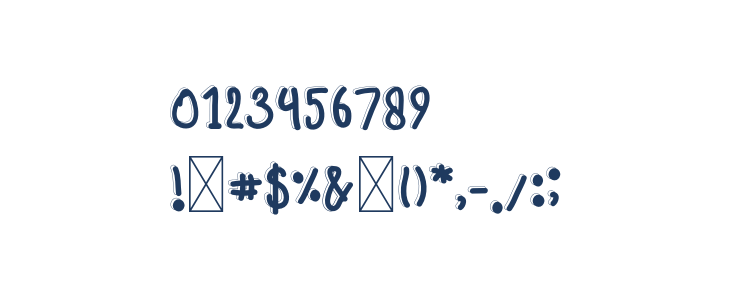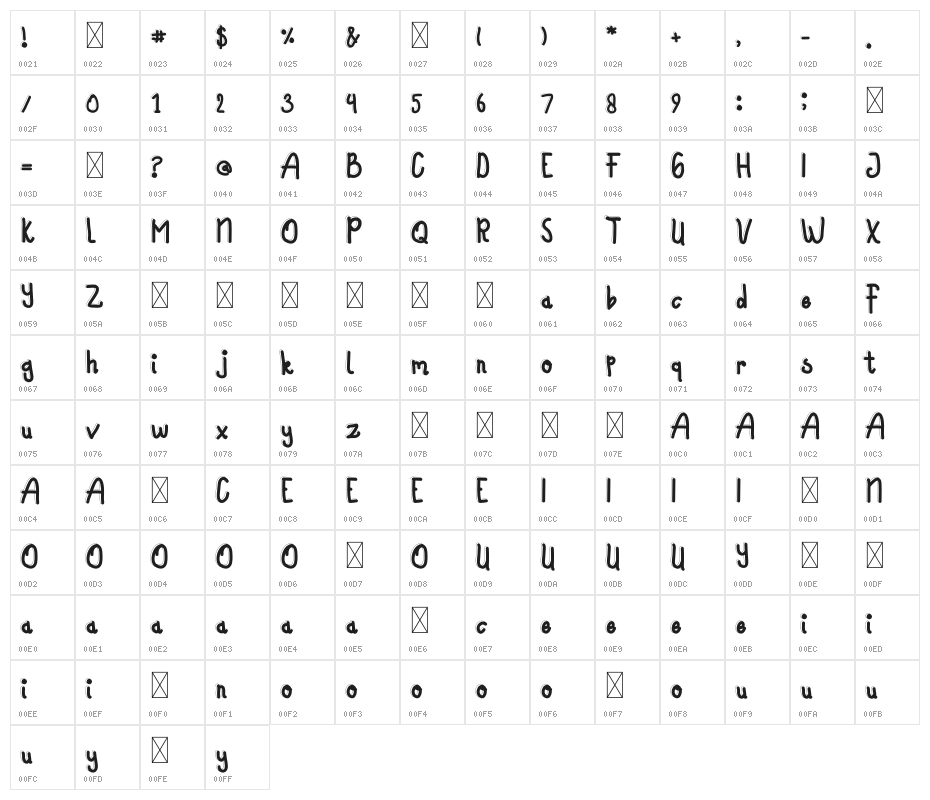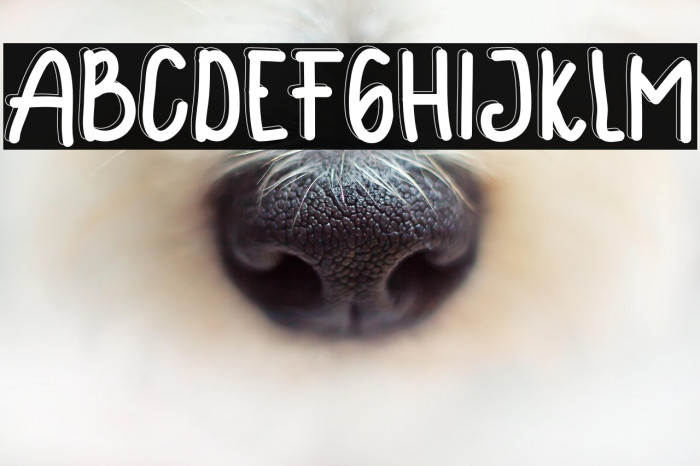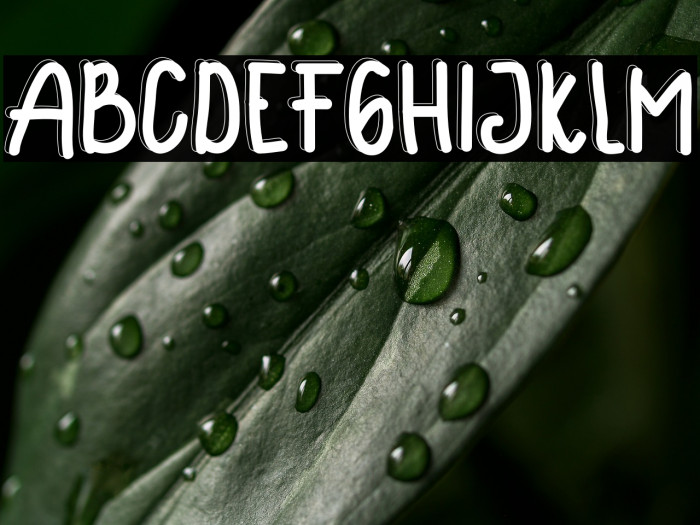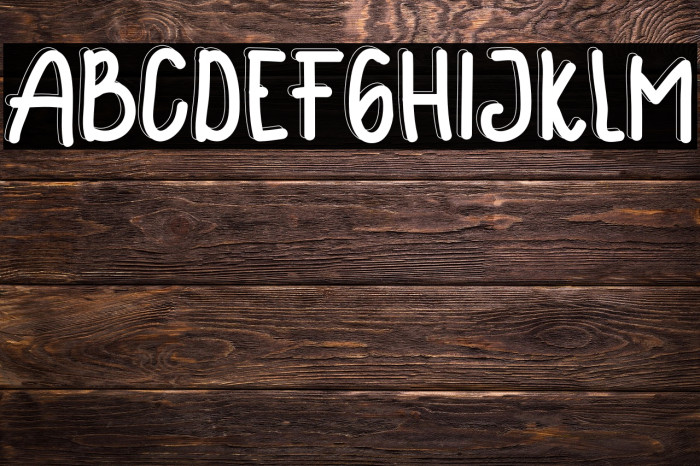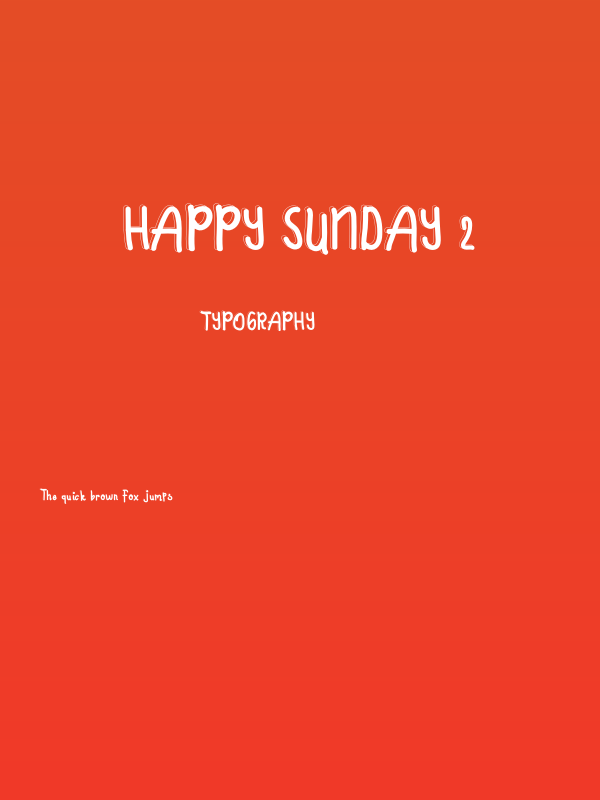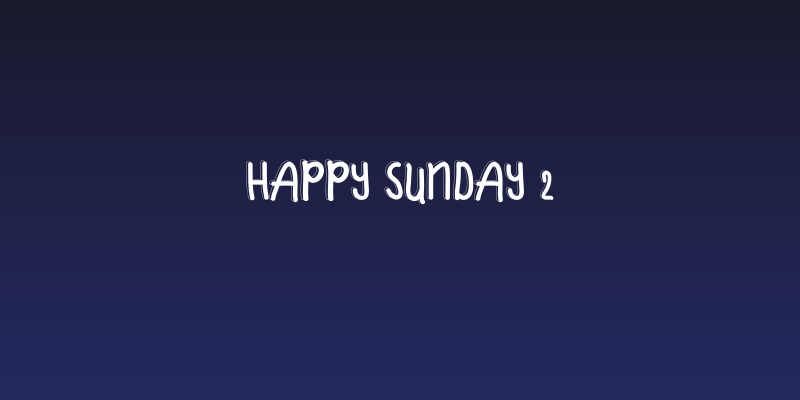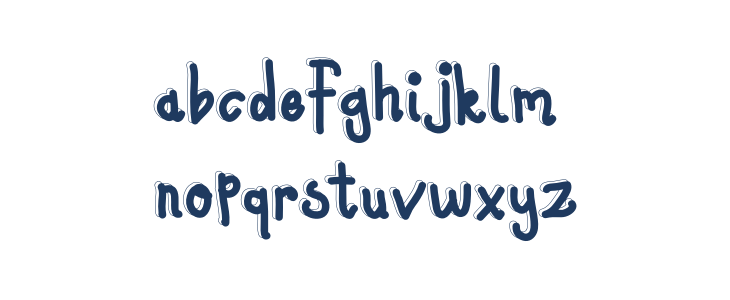
Happy Sunday 2 Font
Happy Sunday 2 Description
This playful and bold font features a handwritten style with a casual, friendly appearance. The letters are slightly rounded with a consistent stroke width, giving it a uniform look. The uppercase and lowercase letters maintain a cohesive style, while the numbers and special characters complement the overall design. The font's informal and approachable nature makes it suitable for projects that require a personal touch. Its bold strokes ensure readability, while the playful curves add a touch of whimsy.
| Proposed Projects | Ideal for greeting cards, children's books, playful branding, and social media graphics. |